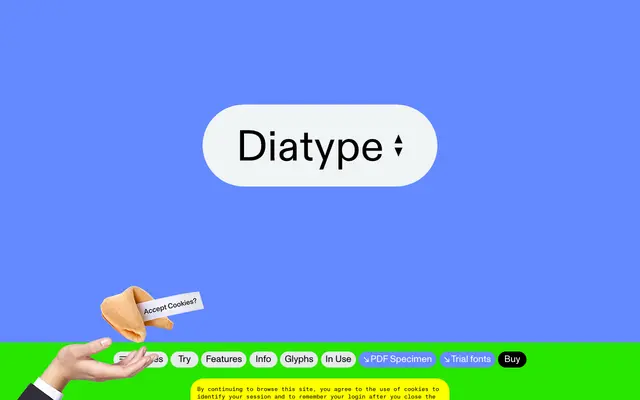
ABC Diatype
Dinamo Typefaces · Dinamo (Johannes Breyer & Fabian Harb, with Elias Hanzer, Erkin Karamemet, Renan Rosatti, Andree Paat) · 2018
A warm Swiss neo-grotesque named after pre-digital typesetting machines, built out across widths, mono cuts and ten scripts.
A Swiss neo-grotesque by Johannes Breyer and Fabian Harb with Elias Hanzer, Erkin Karamemet, Renan Rosatti and Andree Paat, named for the diatype typesetting machines whose mechanics inform its shapes. The system spans five widths from Compressed to Expanded, monospaced and semi-monospaced cuts, and ten scripts including Arabic, Devanagari, Thai, Hangul and Georgian. A workhorse for screen reading where Helvetica feels too cool.
Dinamo describes Diatype as a warm yet sharp grotesque rooted in the Swiss Neo-grotesque tradition, with shapes informed by pre-digital diatype typesetting machines, available in five weights with italics plus monospaced and semi-monospaced styles and a wide multiscript range.